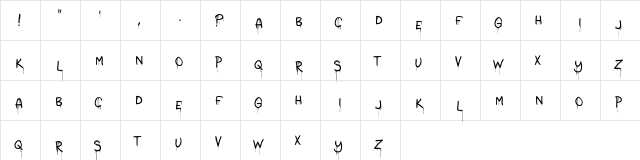
Take Warning Regular
Design Context for Take Warning Typeface
Take Warning is a composed and adaptable typeface that performs quietly and consistently across a wide range of design contexts.
Pro Tip: Pair Take Warning with a font of contrasting weight or personality to build a more expressive typographic hierarchy.